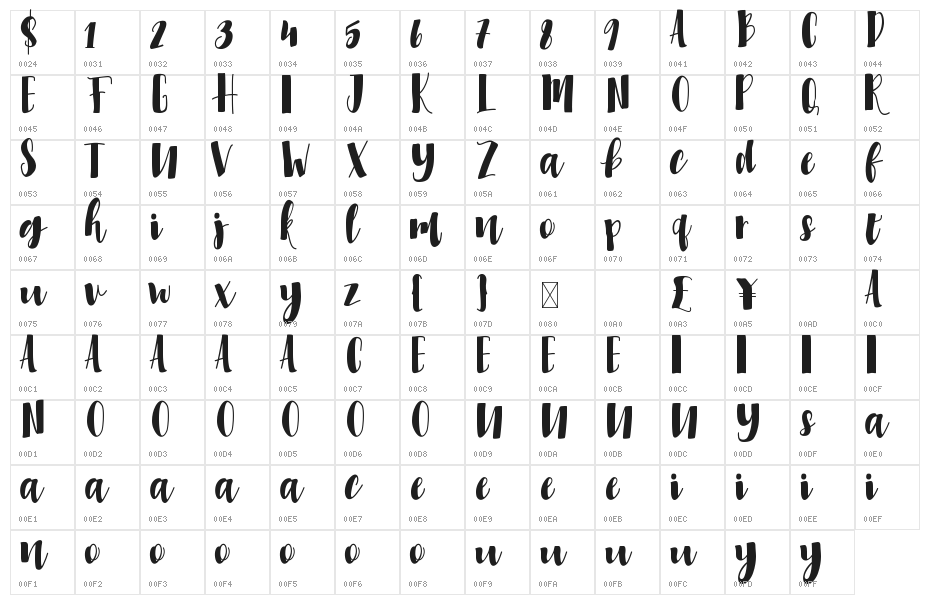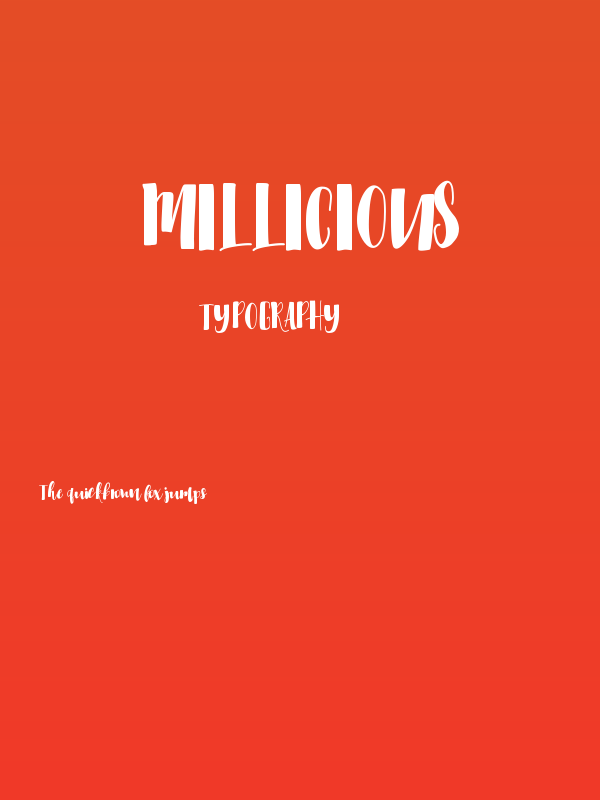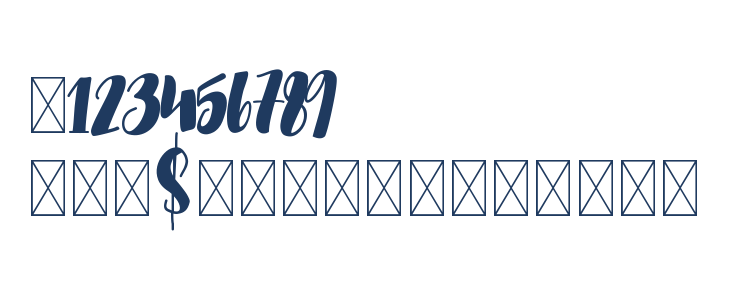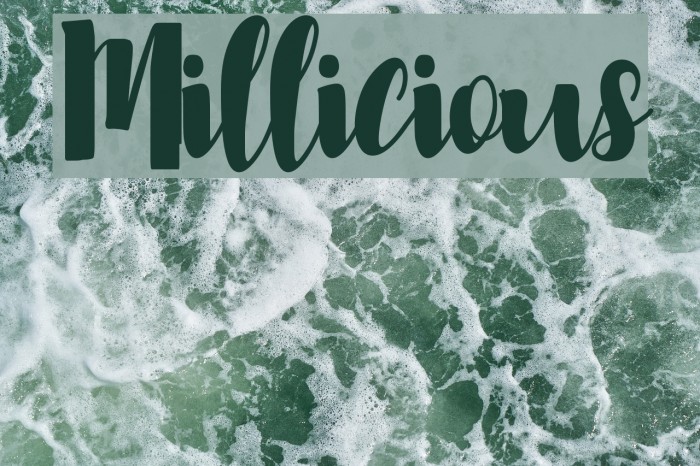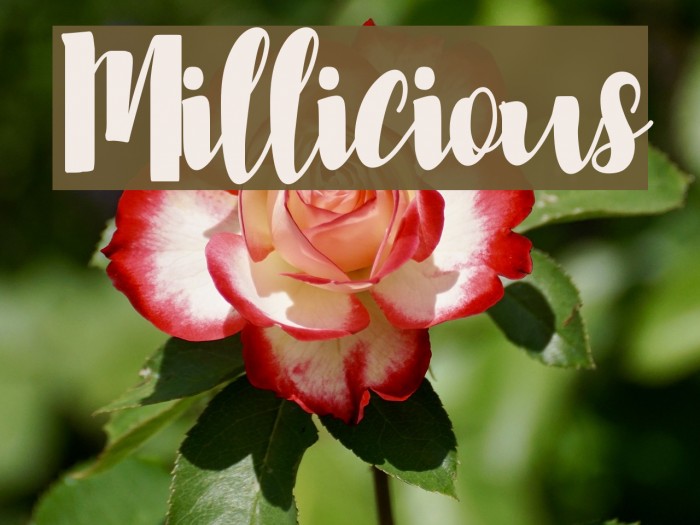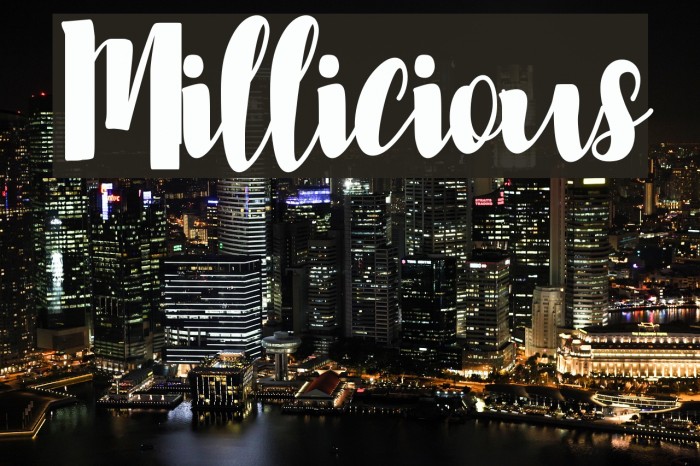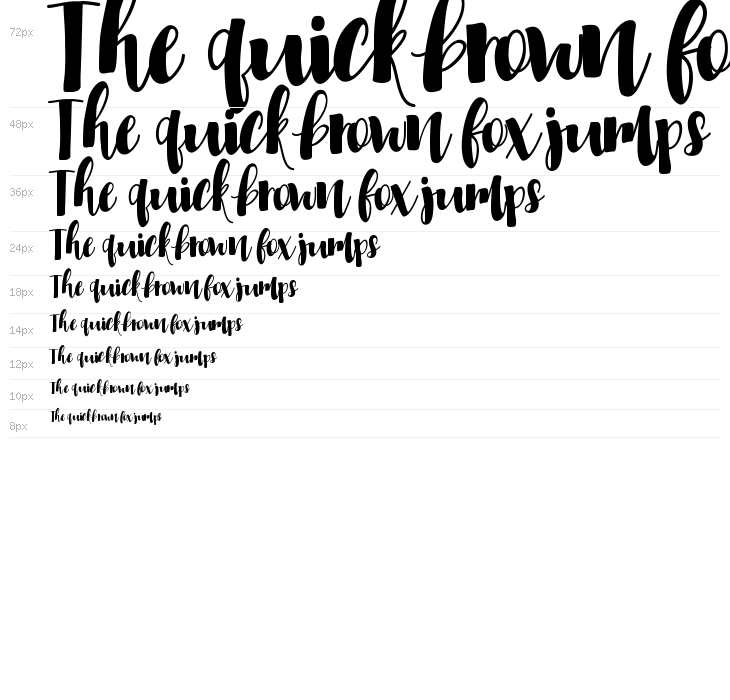
Millicious Font
Millicious Description
This font features a bold and expressive handwritten style, characterized by its thick and flowing strokes. The uppercase letters are tall and slightly condensed, with playful loops and curves that add a whimsical touch. The lowercase letters maintain a consistent style, with some characters featuring unique flourishes that enhance the overall aesthetic. Numbers and special characters are designed to match the lively and dynamic feel of the alphabet, making this font suitable for creative and eye-catching designs.
| Proposed Projects | Ideal for greeting cards, invitations, posters, and branding projects that require a personal and artistic touch. |